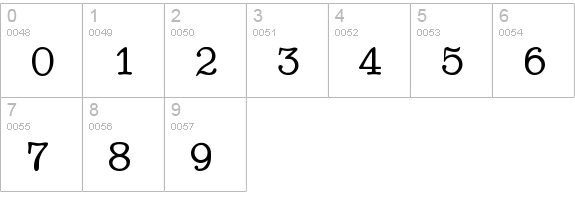
Introducing BetterTypeRightMedium font, a versatile and modern typeface designed to elevate your design projects to the next level. With its clean lines and sophisticated style, this font is perfect for a wide range of applications, from branding to editorial design. The BetterTypeRightMedium font strikes the perfect balance between professionalism and creativity, making it a go-to choice for designers looking to make a statement. What sets BetterTypeRightMedium font apart is not only its elegant design, but also its accessibility. This font is available for free download at FontsMarket.com, making it easy for designers of all levels to incorporate it into their work without breaking the bank. Whether you're working on a personal project or a client commission, the BetterTypeRightMedium font is sure to impress with its timeless appeal. Upgrade your typography game with the BetterTypeRightMedium font and experience the difference it can make in your designs. Download it today and see for yourself why this font is a must-have in every designer's toolkit.